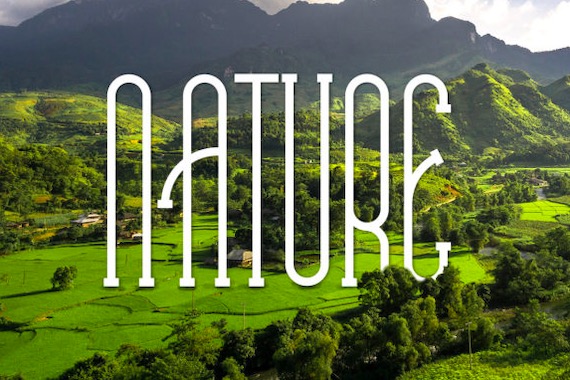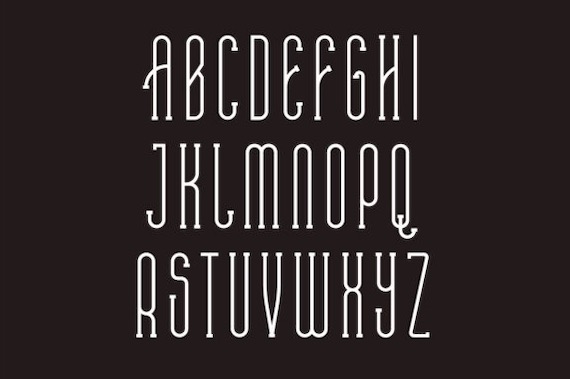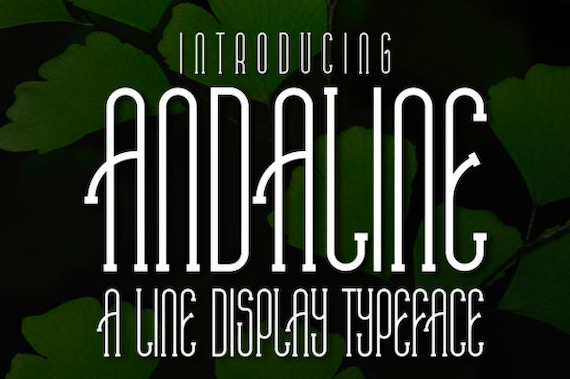
Andaline is a modern and quirky modern serif font that was created and shared by IHD.STD. This modern display font will add an interesting accent to your creative designs! Use it on apparel, mugs, invitations, banners, branding, logos, or anything you wish.
Andaline Display Serif Font